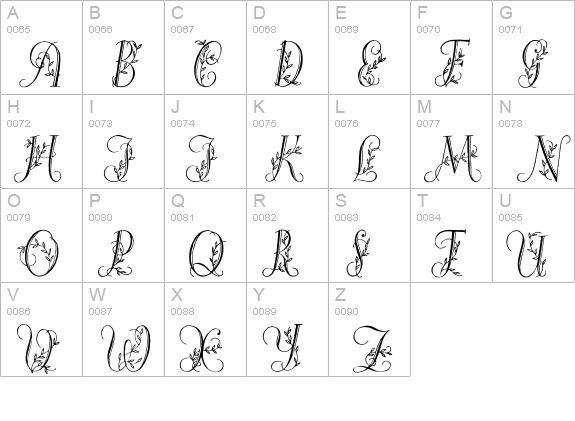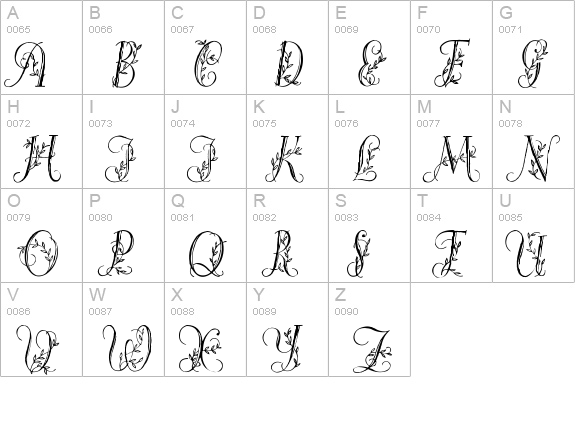
Springtime_Capitals Font Details
Springtime_Capitals font is a beautifully crafted typeface that captures the essence of the blooming season. Its elegant and intricate letterforms showcase the delicate beauty of springtime, making it perfect for any design project that requires a touch of sophistication. With its flowing curves and graceful strokes, Springtime_Capitals font brings a sense of freshness and vitality to any text it adorns. Whether you're designing invitations for a garden party, creating a logo for a floral boutique, or simply adding a touch of spring to your personal projects, this font is sure to impress. One of the best features of Springtime_Capitals font is that it is freely available to download at FontsMarket.com. This means that you can easily incorporate this stunning typeface into your designs without any cost. Whether you're a professional designer, a student, or simply someone who loves experimenting with different fonts, Springtime_Capitals font offers you the opportunity to create beautiful and captivating designs without breaking the bank. The versatility of Springtime_Capitals font is another reason to love it. From elegant headlines to stylish invitations, this font can be used in a variety of design projects. Its timeless appeal makes it suitable for both modern and vintage-inspired designs, adding a touch of sophistication to any composition. So why wait? Embrace the beauty of spring with Springtime_Capitals font. Download it for free at FontsMarket.com and let your creativity bloom. With its stunning aesthetic and effortless charm, this font is sure to elevate your designs and captivate your audience.